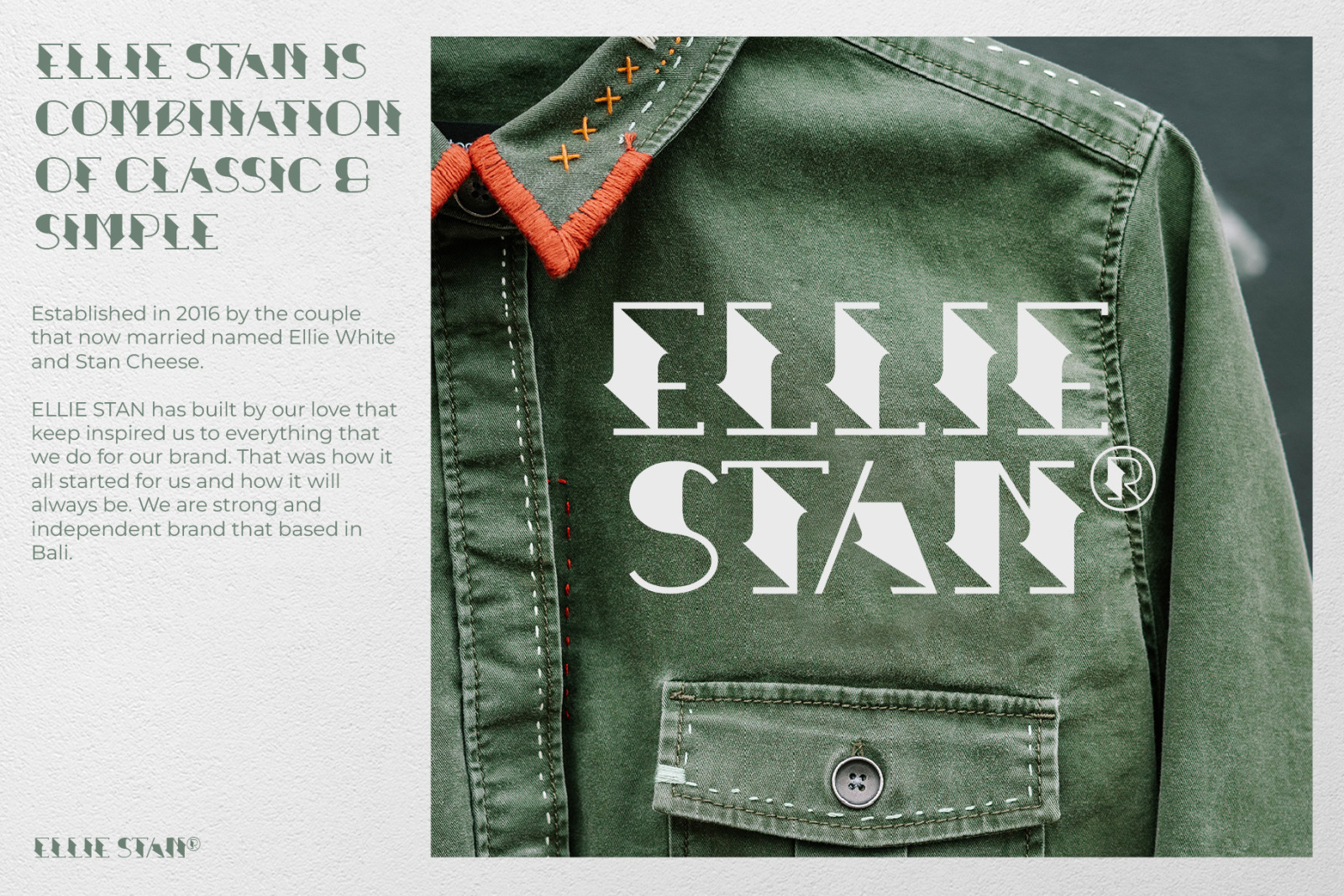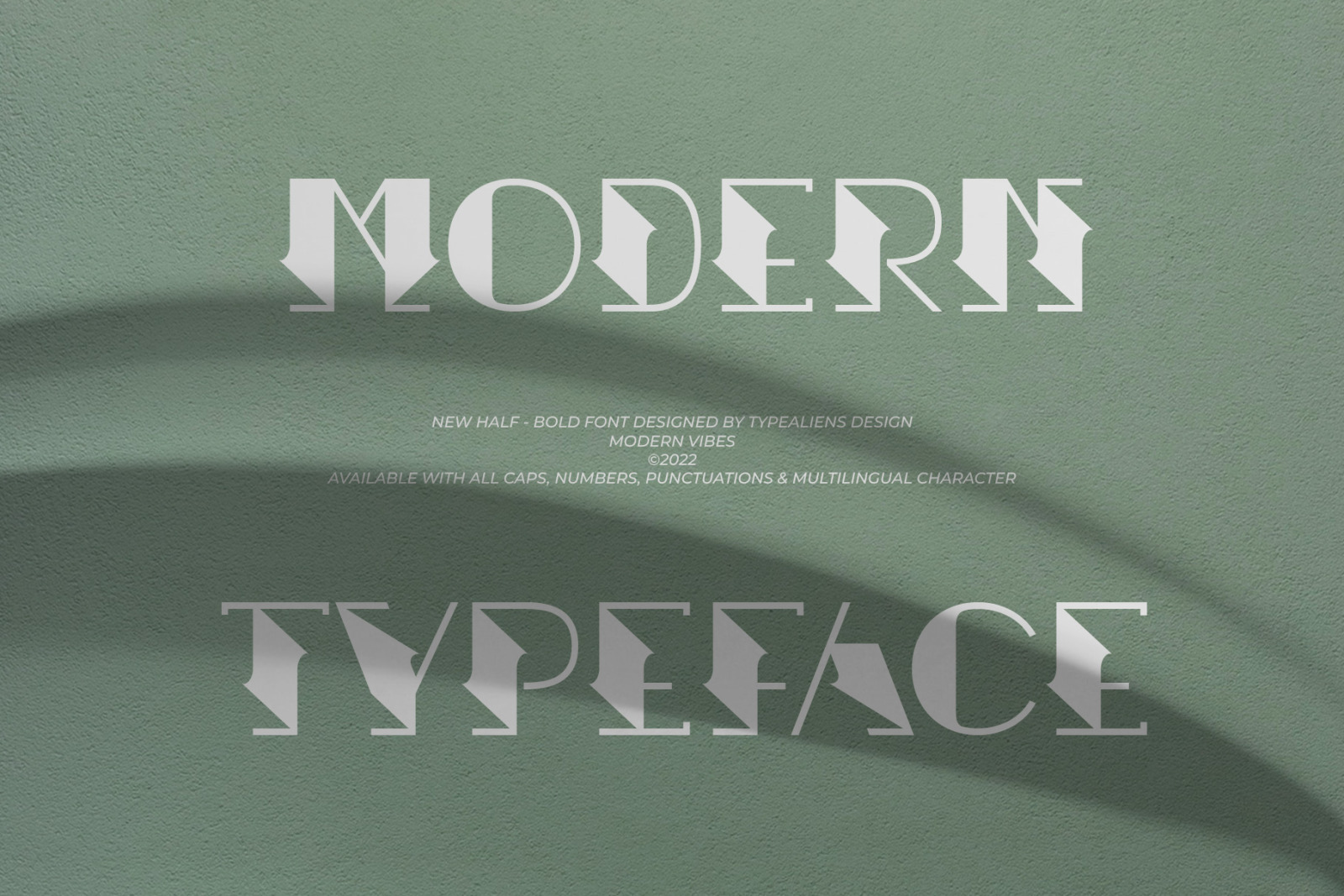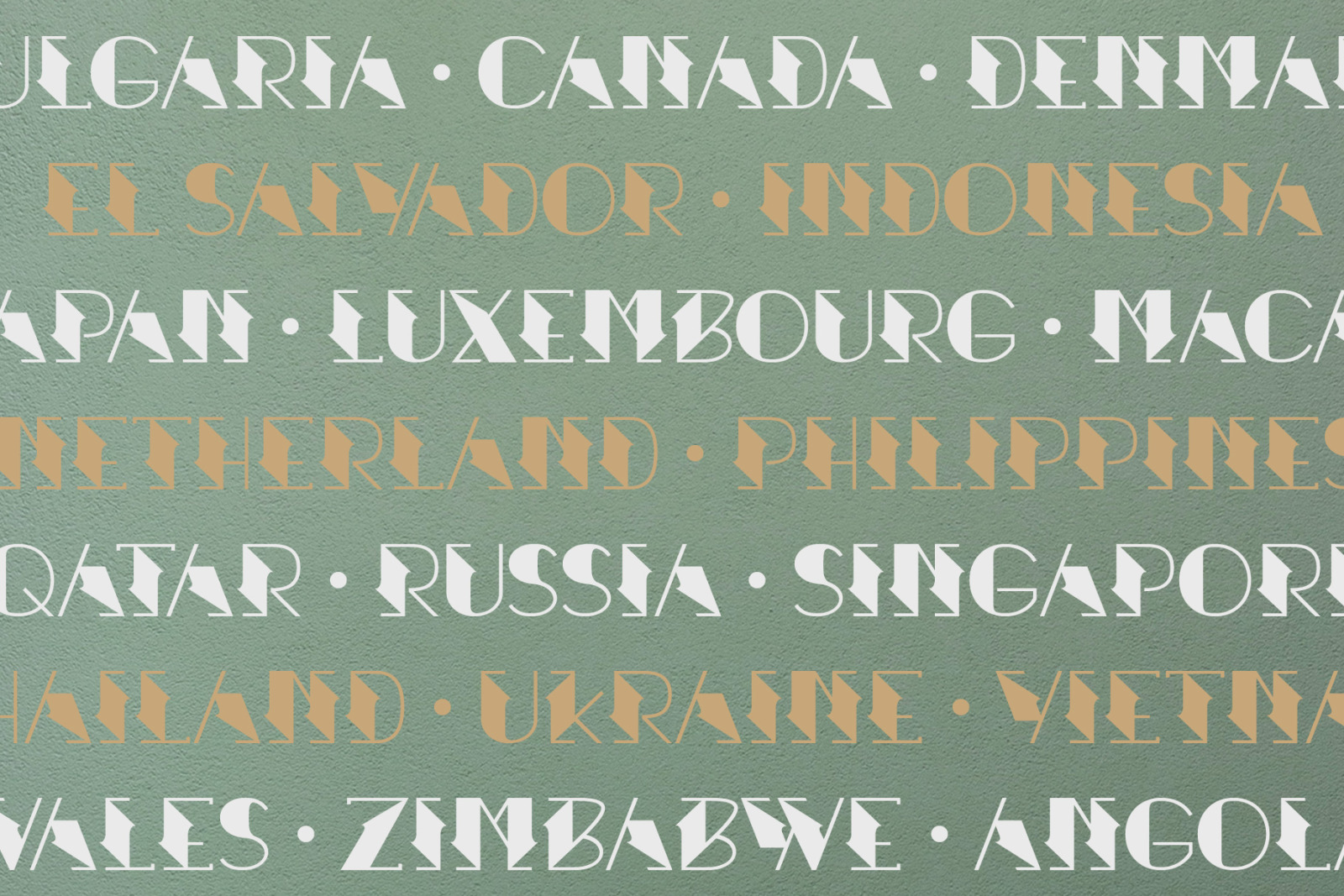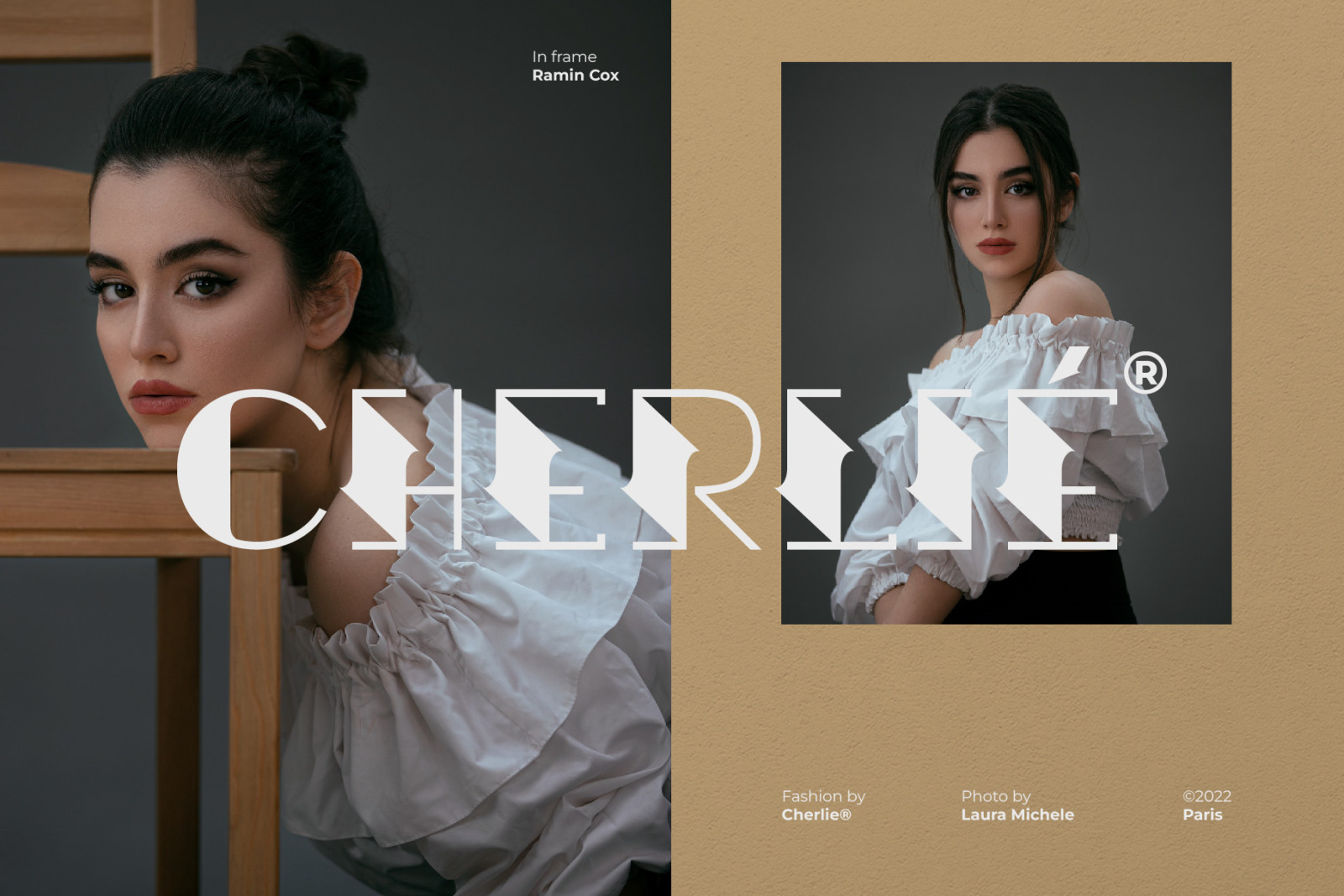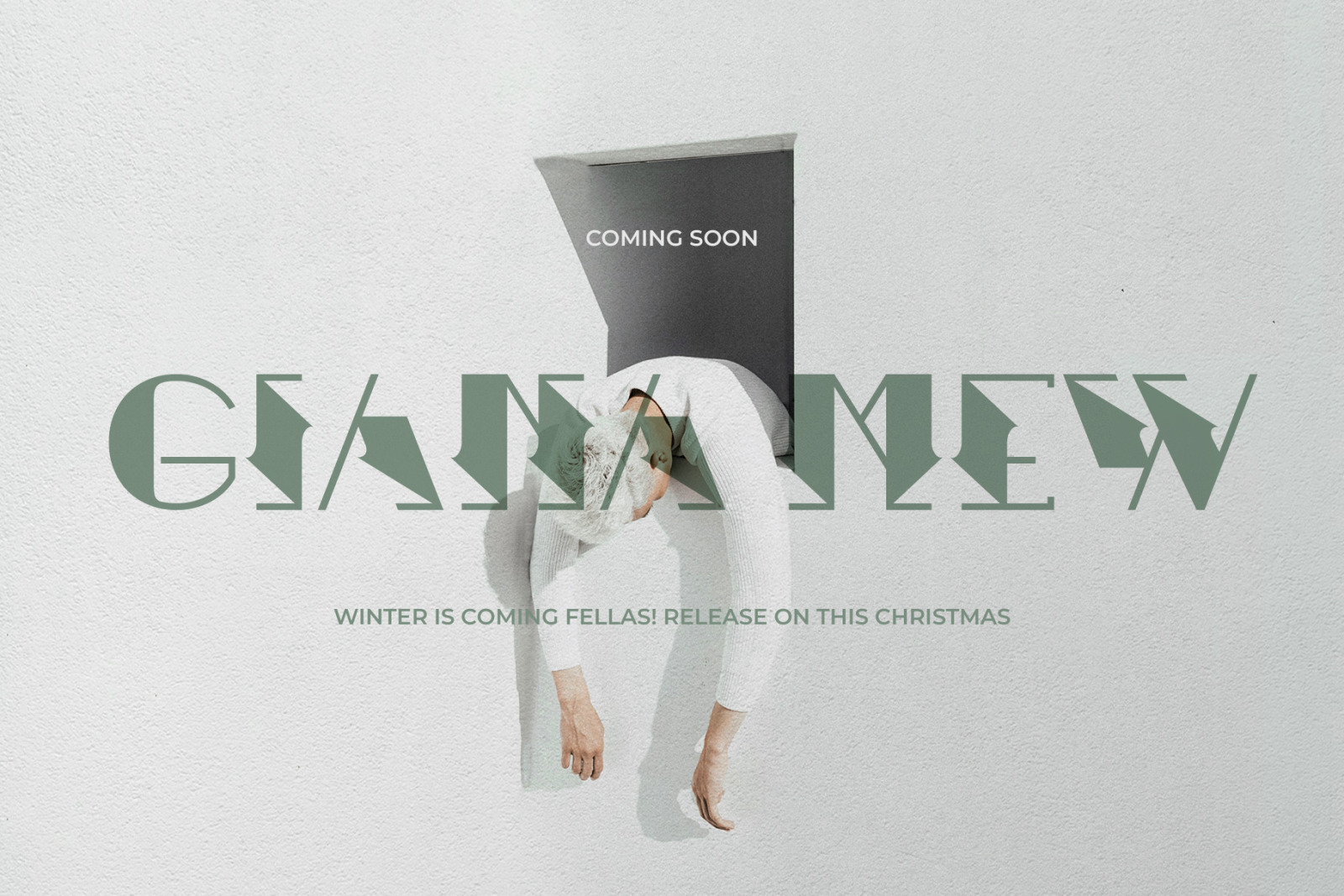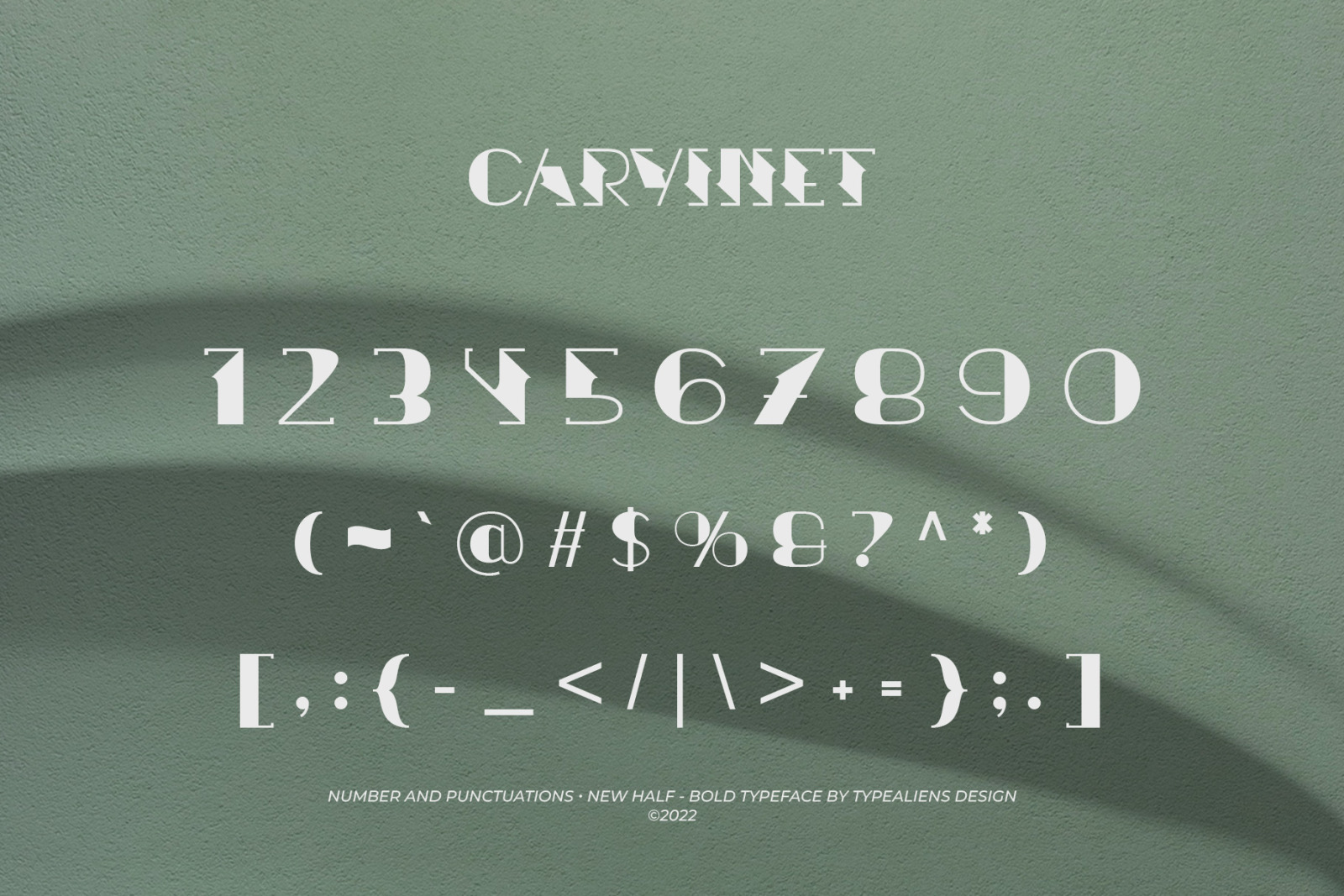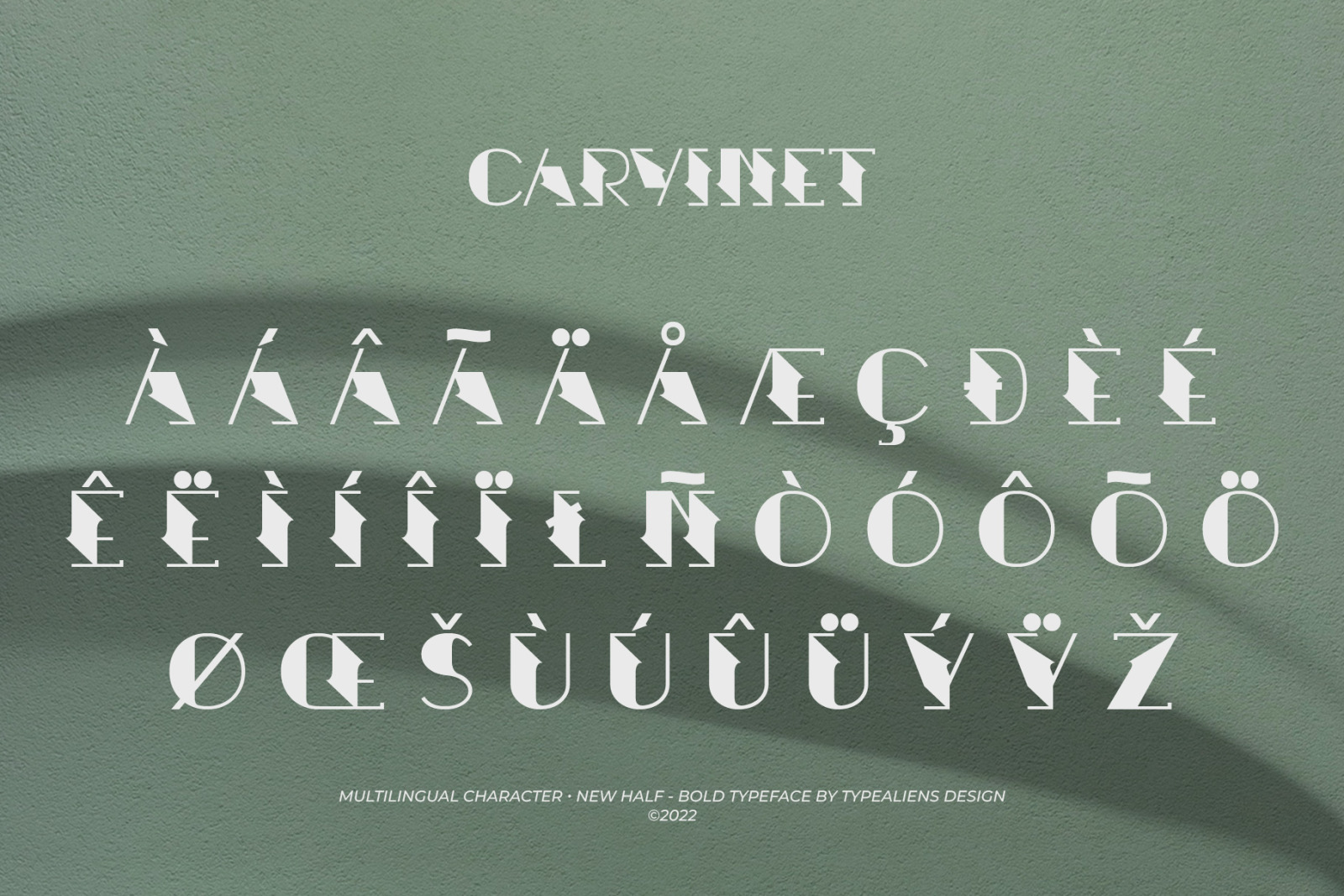
Carvinet Font
CARVINET is a very unique and quirky font, a font whose basic strokes are very unusual in shape. This font is for display only, as a headline in a magazine or website.
This font is an all caps font and is modern.